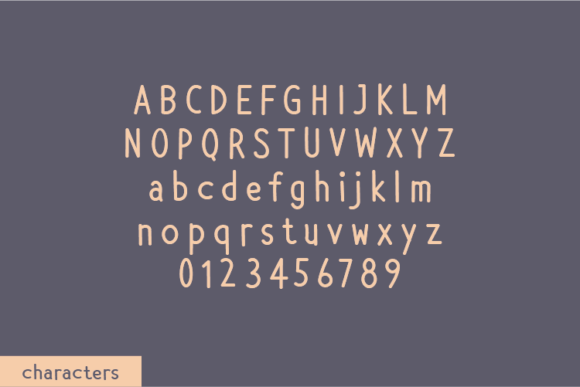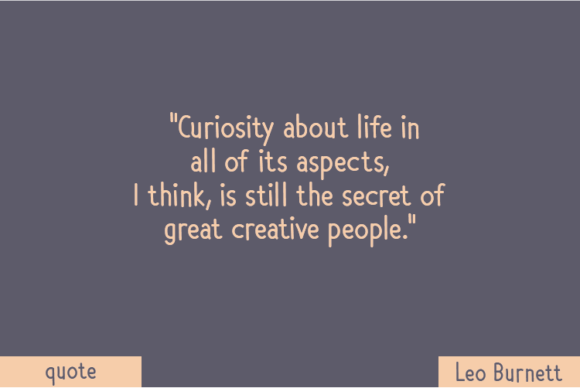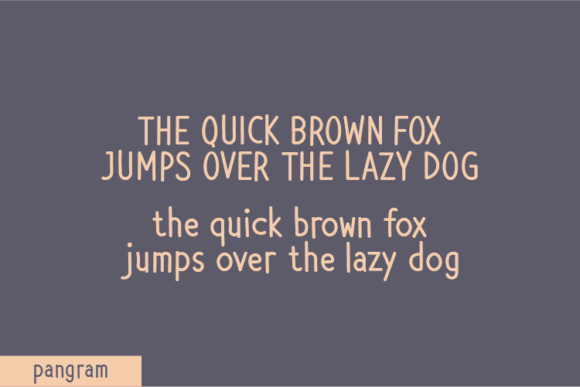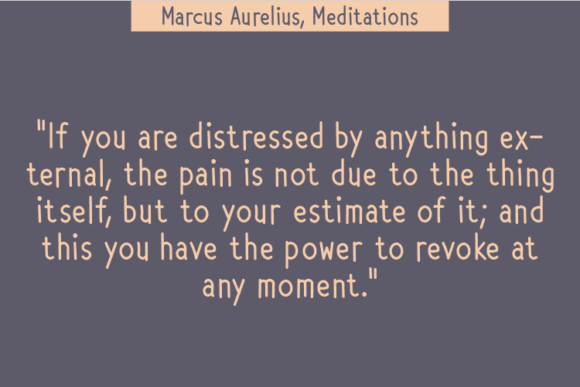
Introduction to Intoxicating Font
Intoxicating is a natural handwritten font made without changing a single node in each character’s indentation – this makes this font very interesting and unique.
Perfect for quotes, notes, tees, and any product design .
Key Features of Intoxicating Font